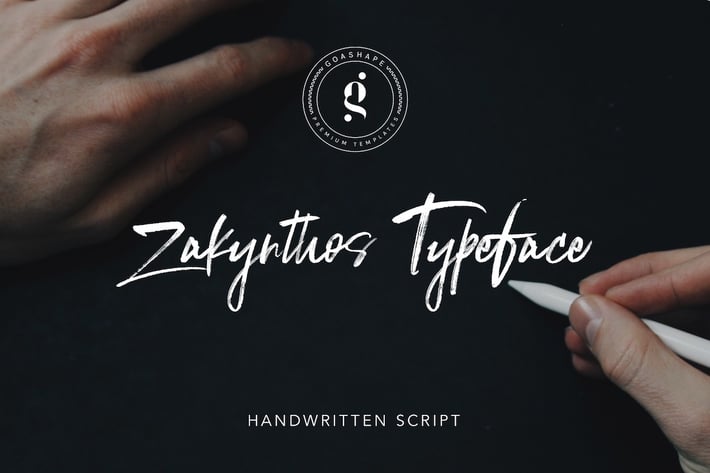
Zakynthos Font
Introducing the brand new handwritten font designed with vector paintbrush details.
Containing upper & lowercase characters, numerals and punctuation.
- Fonts include multilingual support.